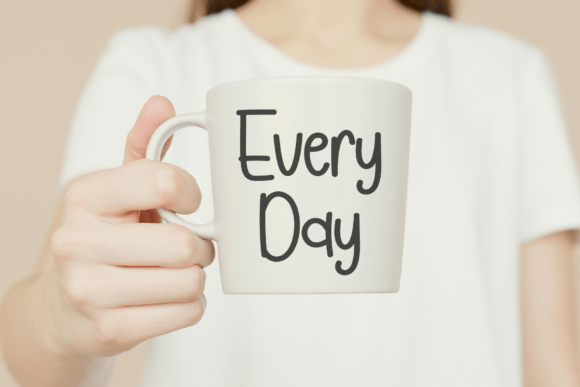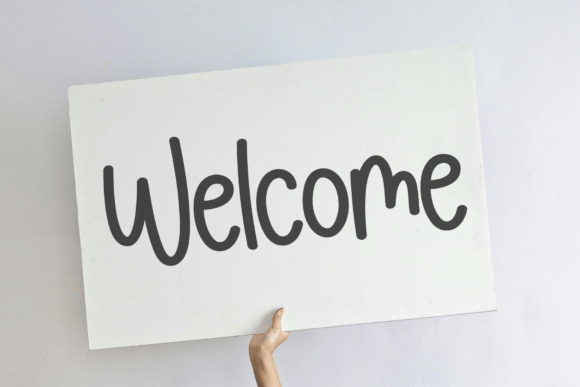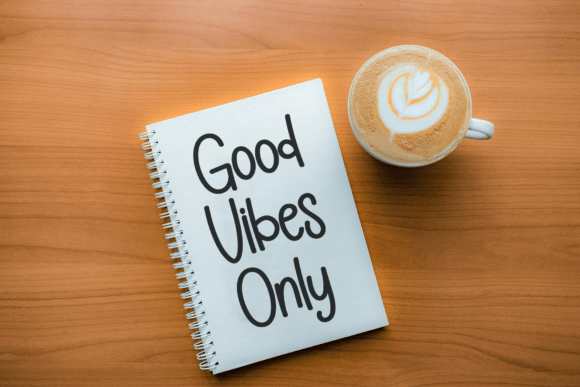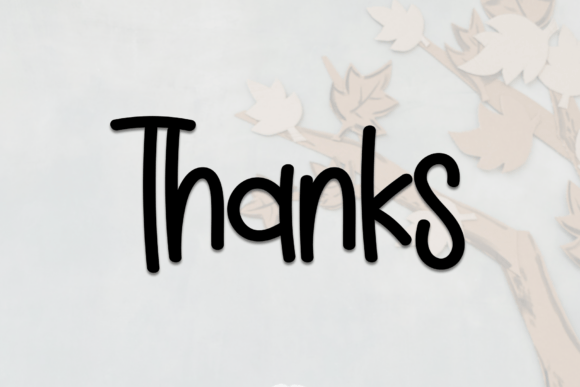
Introducing Handsome Font: The Perfect Blend of Luxury and Casual
Are you tired of using the same old fonts for your designs? Look no further! Handsome Font is a game-changer for designers and crafters alike. This stunning handwritten font is designed to give your work a relaxed and sporty feel, making it perfect for a wide range of applications.
What is Handsome Font?
Handsome Font is a beautifully crafted handwritten font that looks like it was drawn with a marker. Its unique and elegant style makes it an excellent choice for anyone looking to add a touch of sophistication to their designs. Whether you’re working on a branding project, creating a logo, or designing wedding supplies, Handsome Font is the perfect fit.
Key Features of Handsome Font
- Relaxed and Sporty Feel: Handsome Font has a laid-back and sporty vibe that’s perfect for designs that require a casual touch.
- Luxurious and Elegant: Despite its casual feel, Handsome Font exudes luxury and elegance, making it suitable for high-end designs.
- Handwritten with a Marker: The font’s handwritten style gives it a personal and unique touch.
- Versatile: Handsome Font can be used for a wide range of applications, from branding and logos to wedding supplies and greeting cards.
Use Cases for Handsome Font
So, where can you use Handsome Font? The possibilities are endless! Here are some ideas to get you started:
- Branding: Use Handsome Font to create a unique and memorable brand identity.
- Logos: Design a stunning logo that reflects your brand’s personality with Handsome Font.
- Wedding Supplies: Add a touch of elegance to your wedding designs, such as invitations, programs, and place cards.
- Greeting Cards: Create beautiful and heartfelt greeting cards for special occasions.
- Fashion: Use Handsome Font to create stylish and trendy fashion designs, such as lookbooks and marketing promotions.
Why Choose Handsome Font?
With so many fonts available, why choose Handsome Font? Here are just a few reasons:
- Unique Style: Handsome Font has a one-of-a-kind style that’s sure to make your designs stand out.
- Easy to Read: Despite its elegant style, Handsome Font is easy to read and understand.
- Customizable: You can customize Handsome Font to fit your design needs, making it a versatile choice.
Tips for Using Handsome Font
To get the most out of Handsome Font, here are some tips:
- Pair with Other Fonts: Experiment with pairing Handsome Font with other fonts to create a unique and visually appealing design.
- Use for Headlines and Titles: Handsome Font is perfect for headlines and titles, adding a touch of elegance to your designs.
- Experiment with Colors: Try out different colors to see how they affect the overall look and feel of your design.
In conclusion, Handsome Font is a versatile and elegant font that’s perfect for designers and crafters looking to add a touch of sophistication to their work. With its relaxed and sporty feel, luxurious and elegant style, and versatility, Handsome Font is an excellent choice for a wide range of applications. Try it out today and see the difference it can make in your designs!